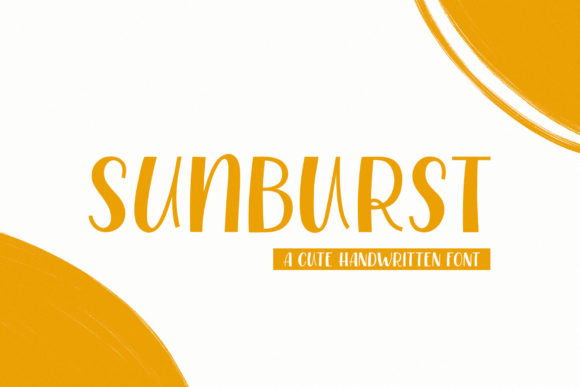
Dive into the dazzling world of Sunburst Font, a captivating display font crafted by the imaginative mind of kamilla.writes.letters. Its charming persona radiates warmth and cheer, making it the perfect choice for adding a touch of whimsy to your creative projects.
With its playful curves and energetic strokes, Sunburst Font dances across the screen, captivating attention and leaving a lasting impression. Its unique style blends the charm of handwritten lettering with the precision of a digital font, resulting in a versatile typeface that can elevate any design concept.
Step into the realm of endless possibilities with Sunburst Font. Unleash your creativity and let the vibrancy of this font ignite your imagination. Whether you're designing social media quotes, creating eye-catching stickers, or personalizing t-shirt designs, Sunburst Font is your trusty companion, bringing your vision to life with flair and enthusiasm.
Transform your designs into captivating works of art. The friendly and informal nature of Sunburst Font fosters a sense of connection, inviting viewers to engage with your content. Whether you're crafting branding materials or designing posters, Sunburst Font weaves a story that captures the essence of your brand and resonates with your audience.
Take your creative journey to new heights with Sunburst Font. Its versatility knows no bounds, adapting seamlessly to a multitude of projects. From scrapbooking to branding, and from posters to social media graphics, Sunburst Font empowers you to express yourself with boundless creativity and leave an unforgettable mark on your audience.